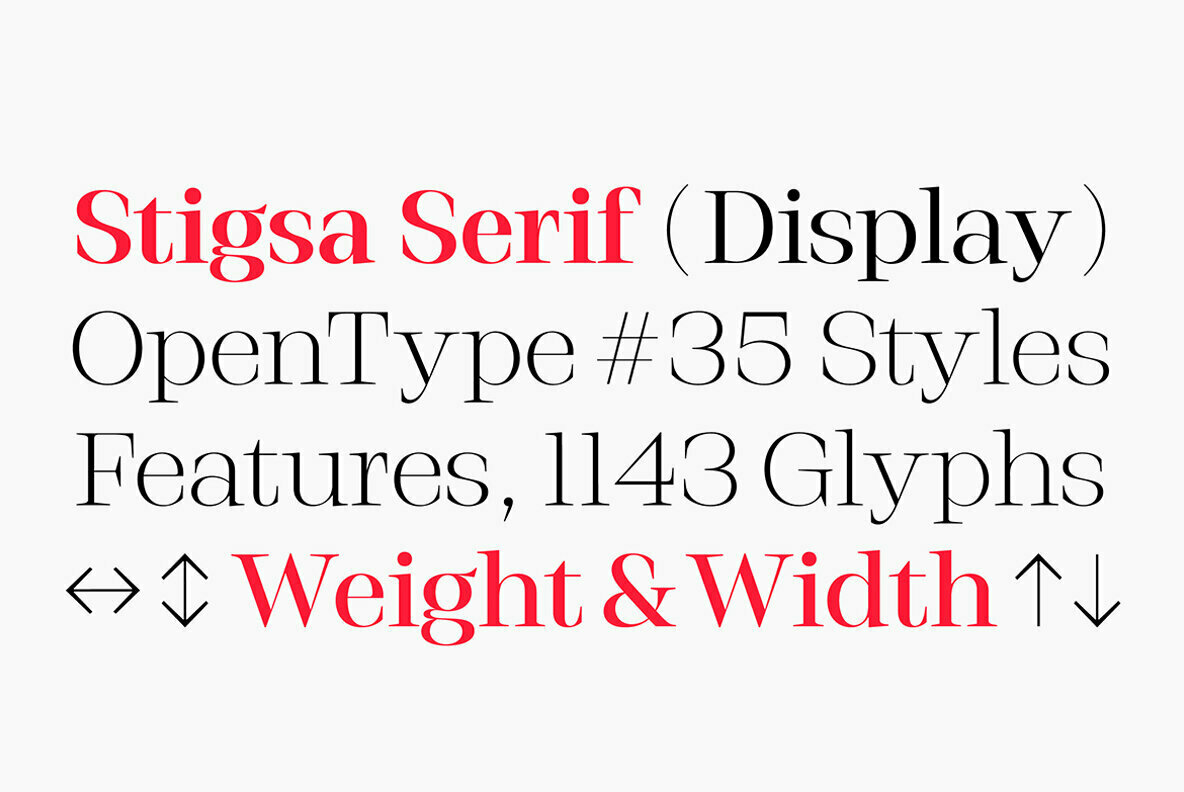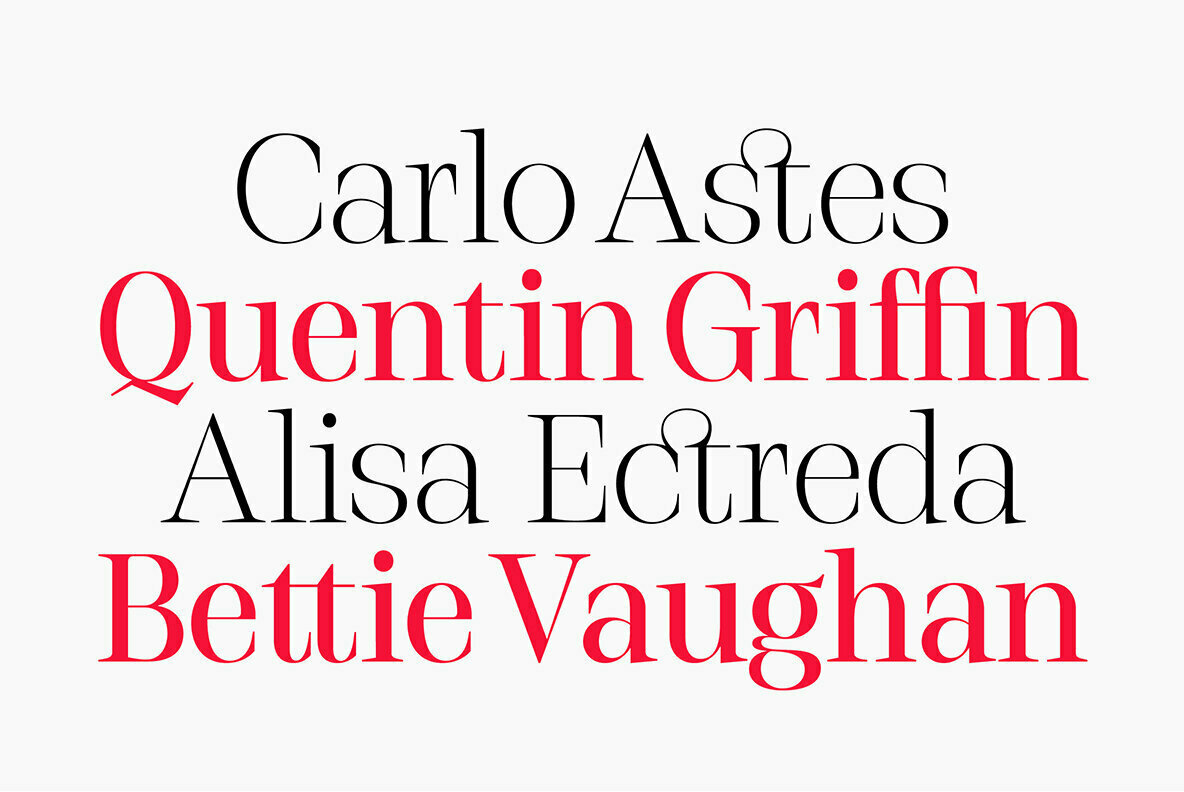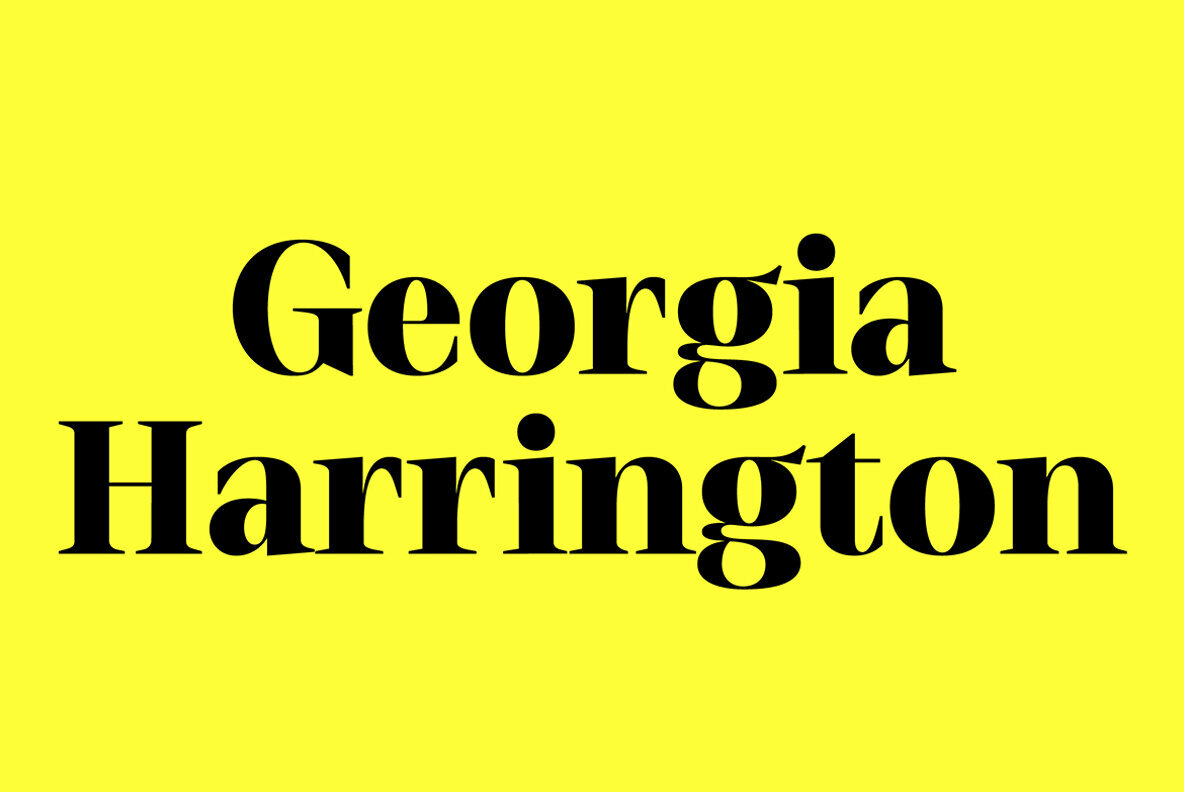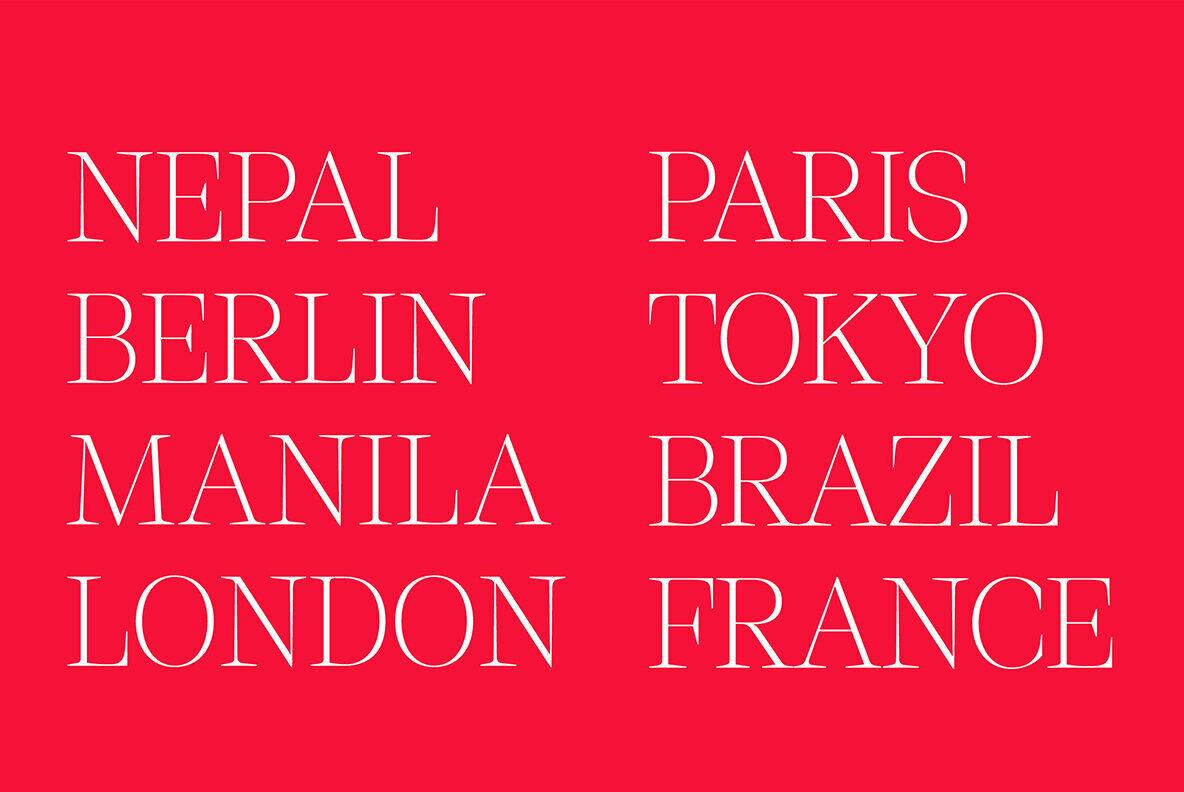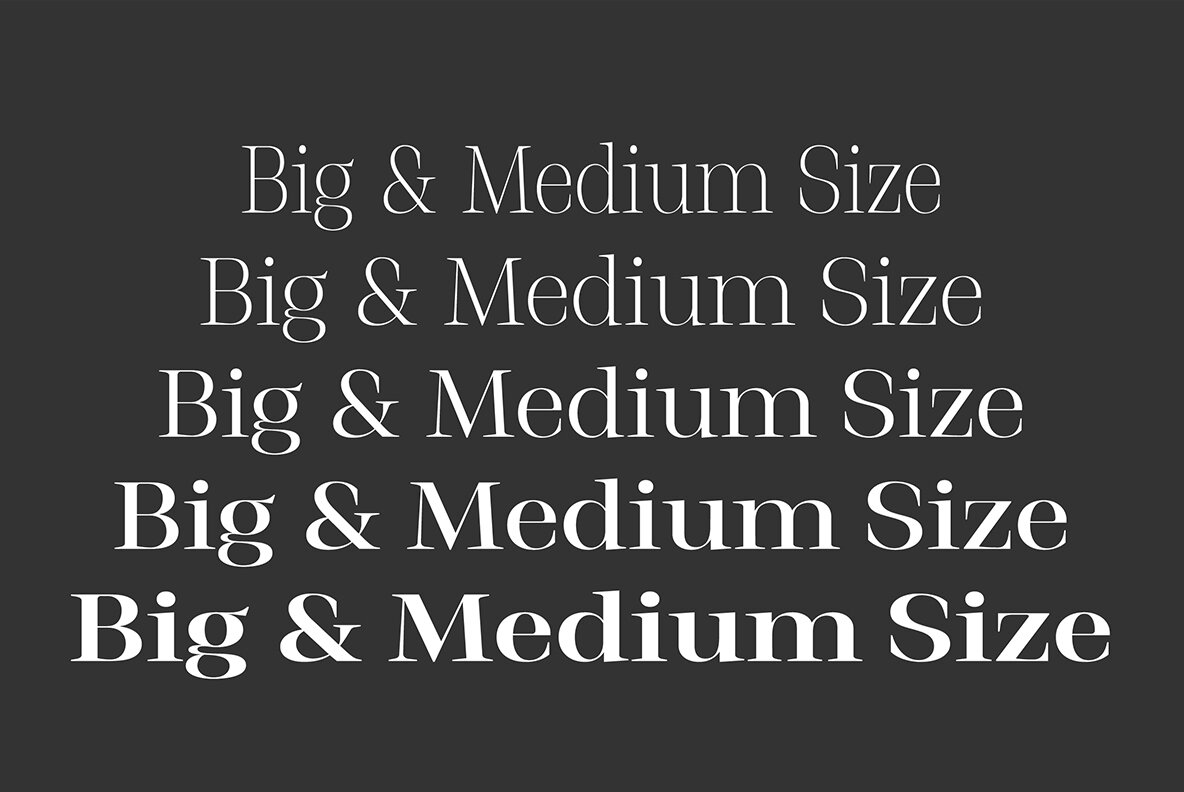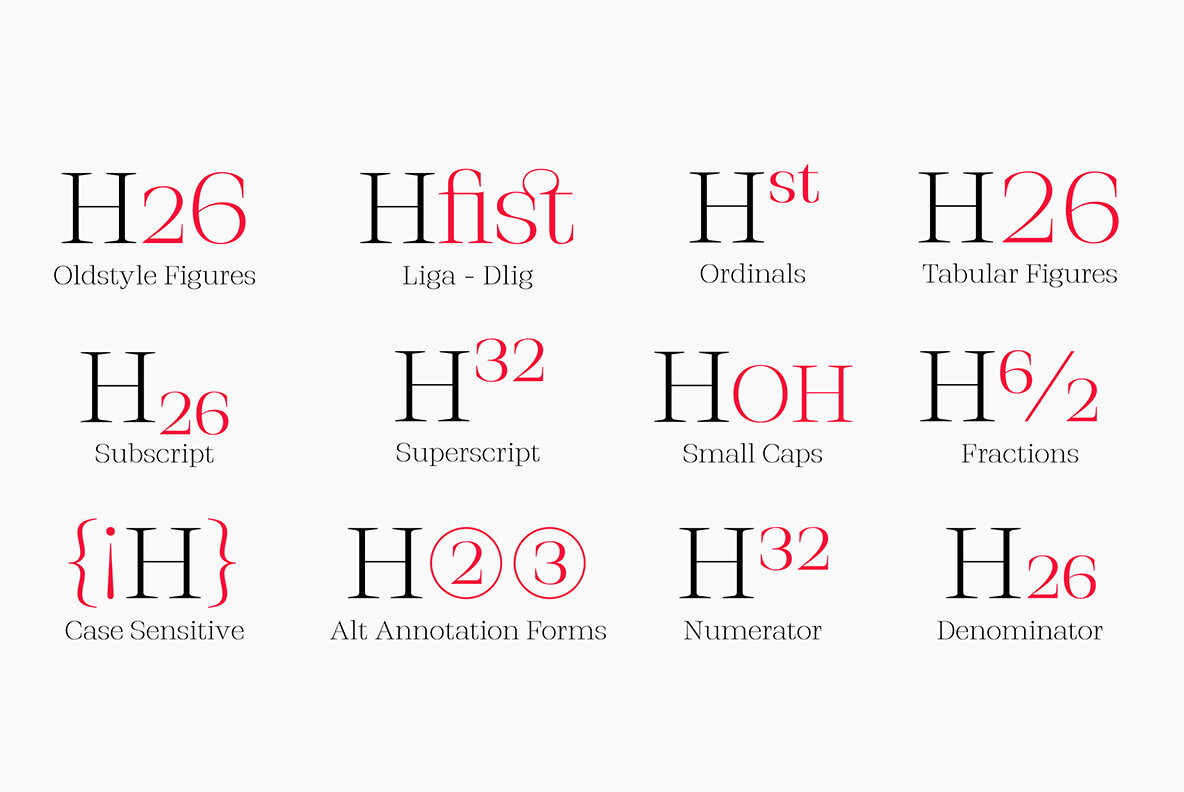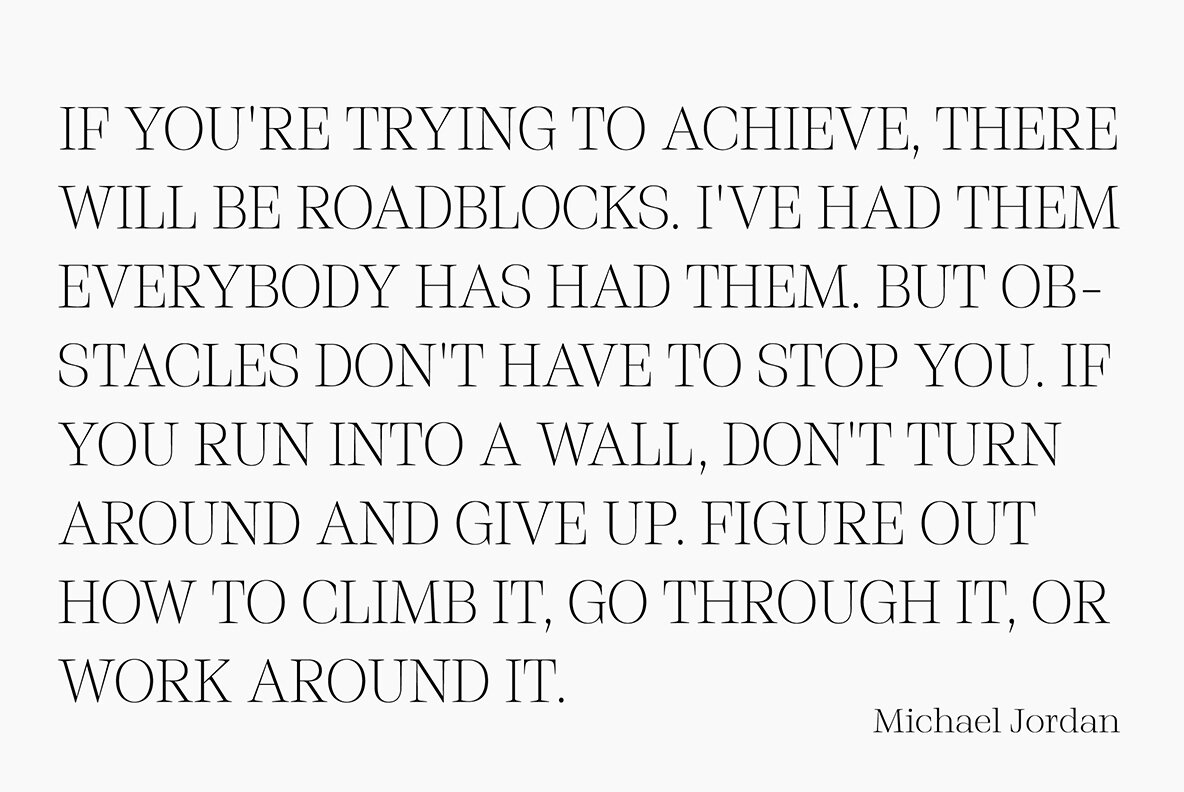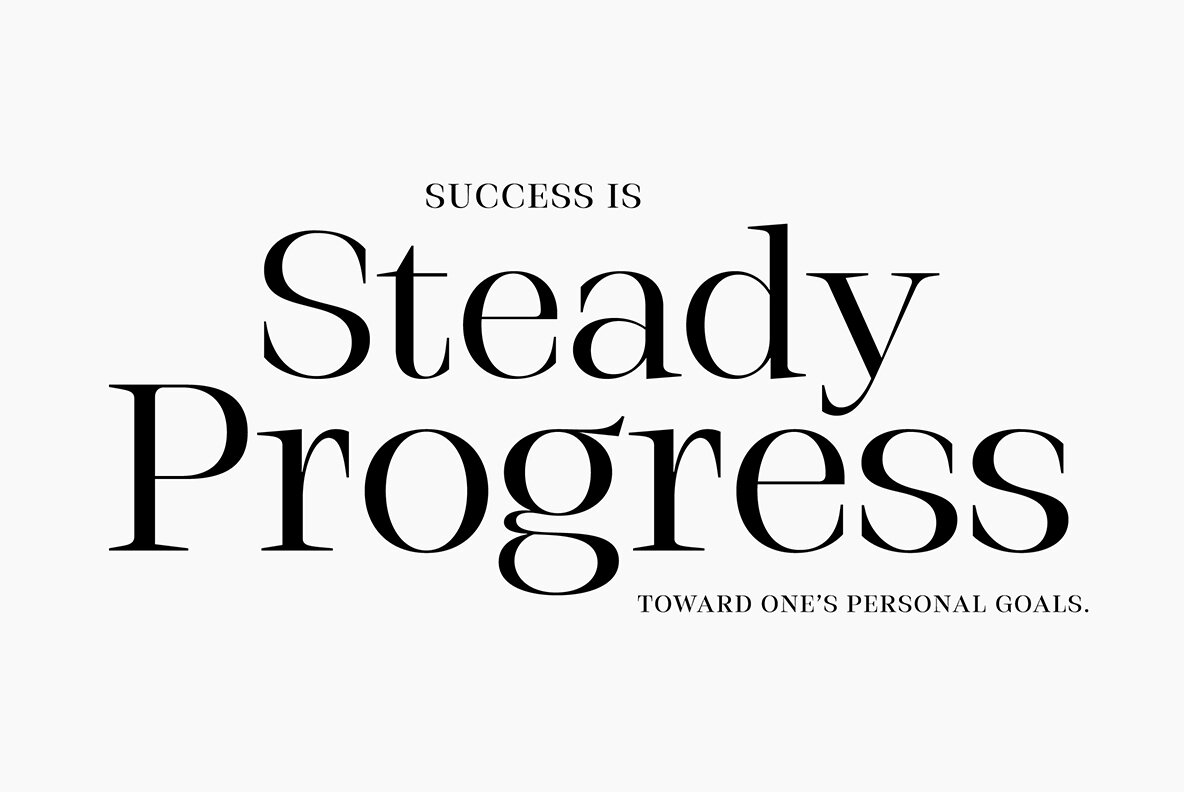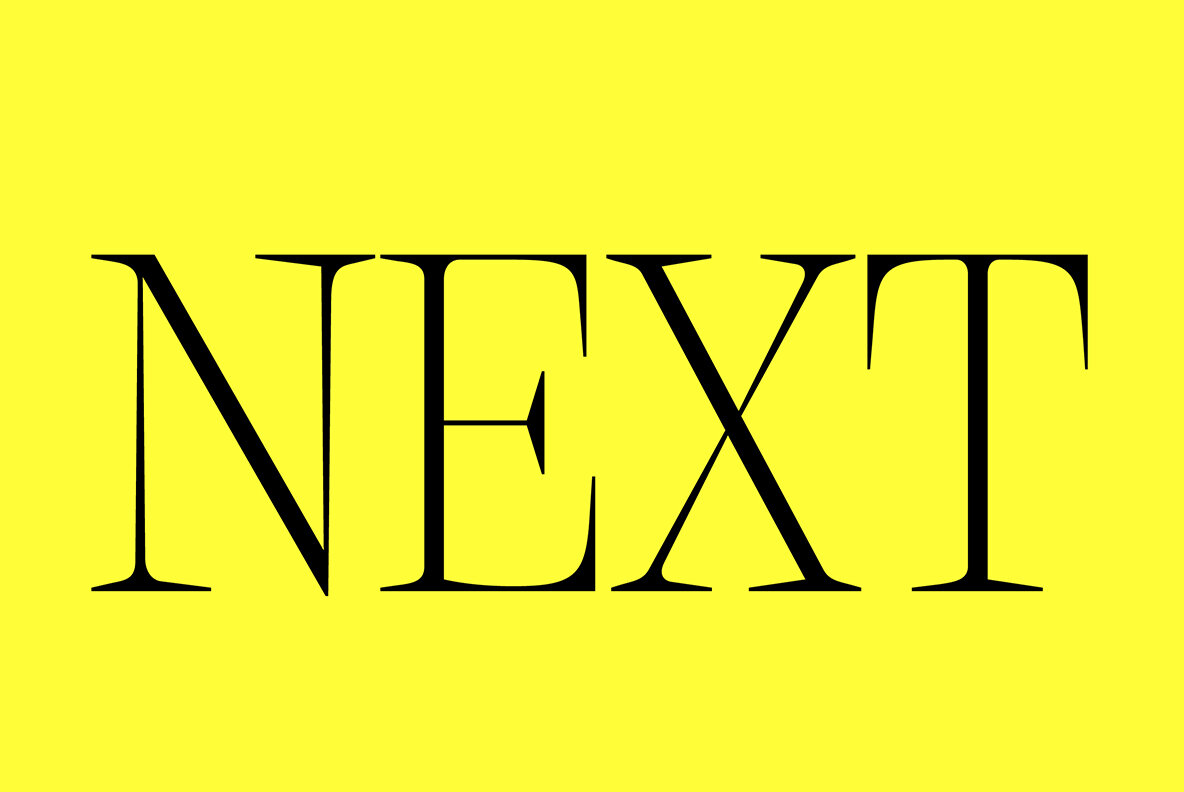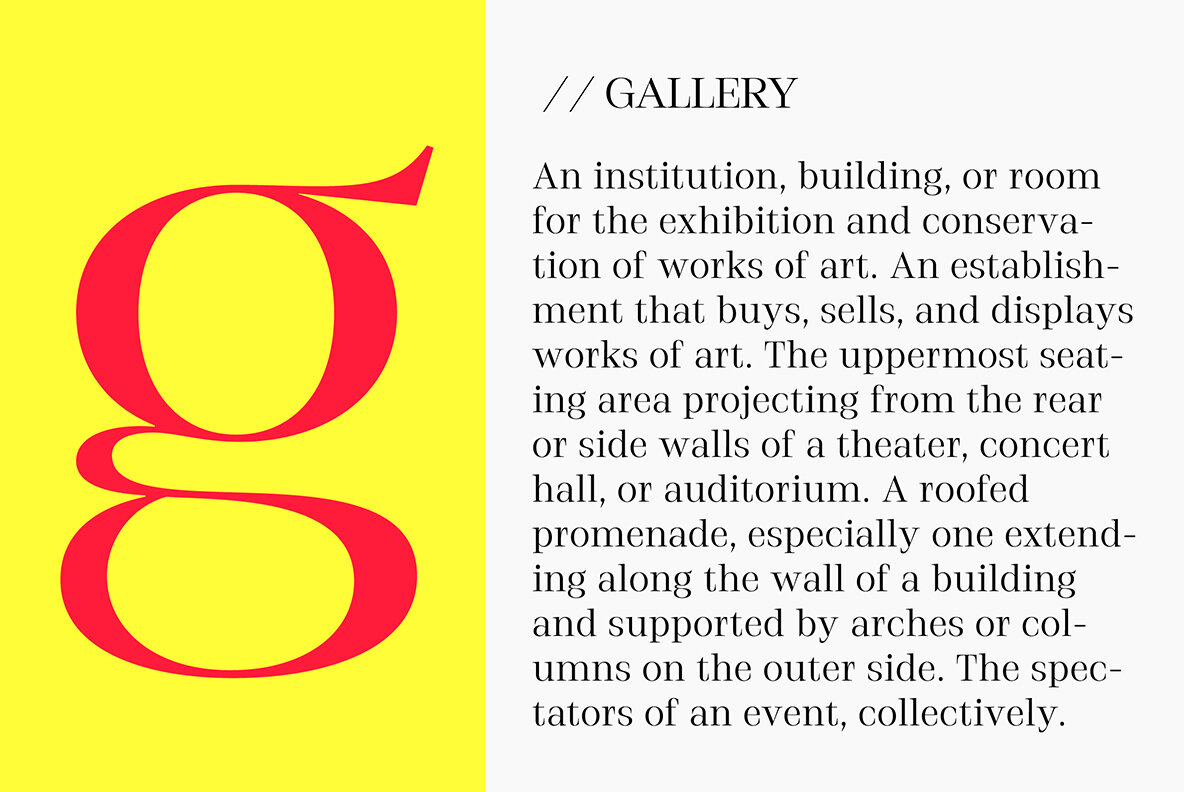
Stigsa Display Font
The Stigsa Display typeface, crafted by Seniors Studio, captures the essence of transitional and contemporary designs. This high-contrast serif font features a vertical stress and sharp serifs, making it both elegant and legible. Whether used in large headline settings or medium-sized text, its versatility makes it an essential addition to any designer's toolkit. Due to its adaptable nature and rich typographic possibilities, Stigsa Display suits a plethora of design applications, from editorial projects to branding. Embrace its range of styles to create visually striking compositions.Stigsa Display: A Versatile High-Contrast Typeface